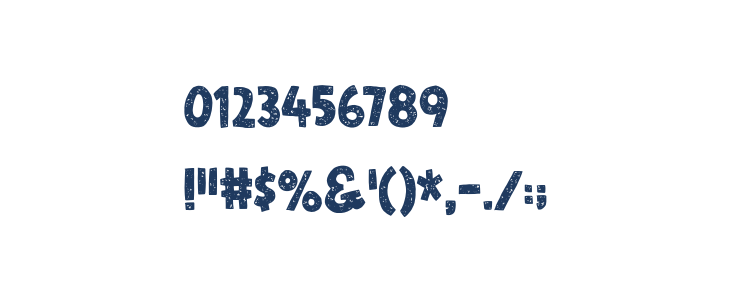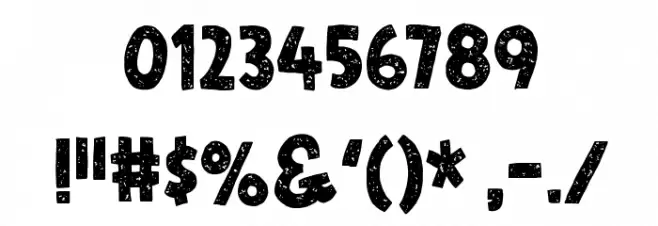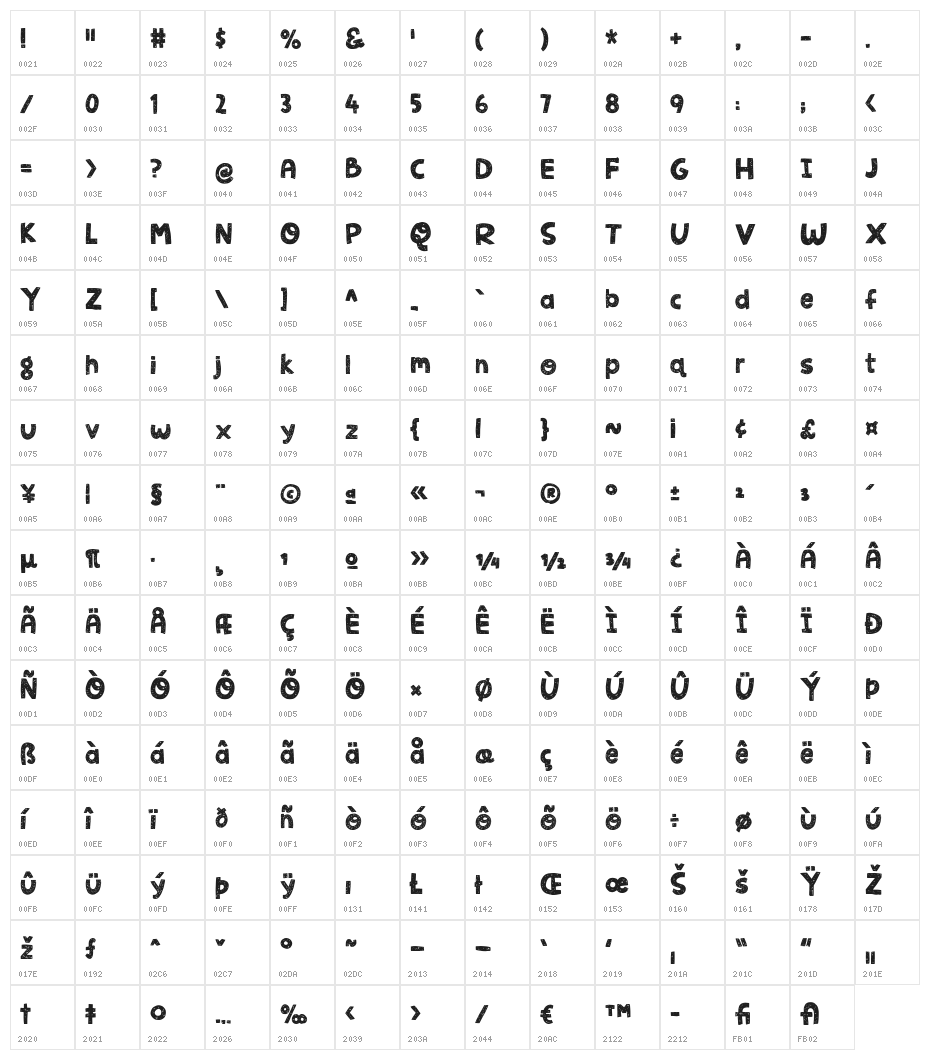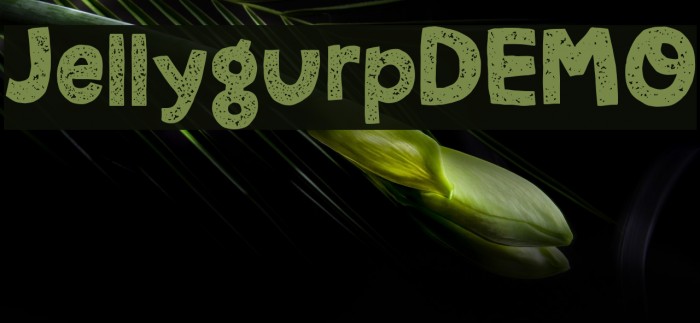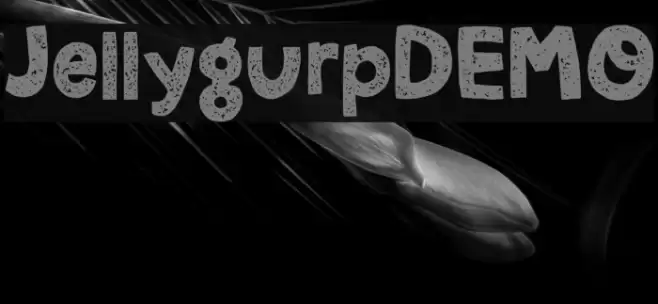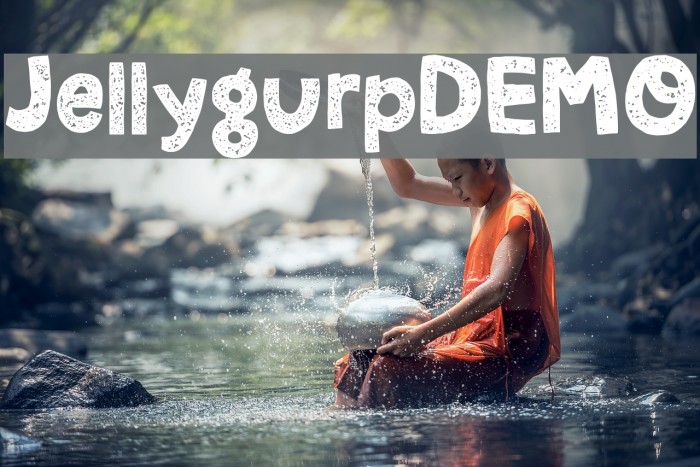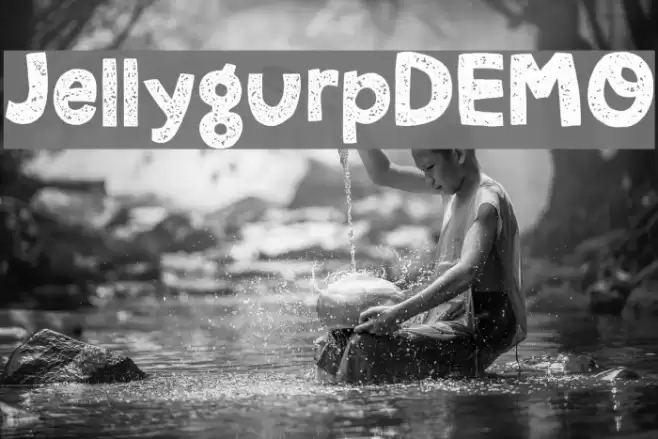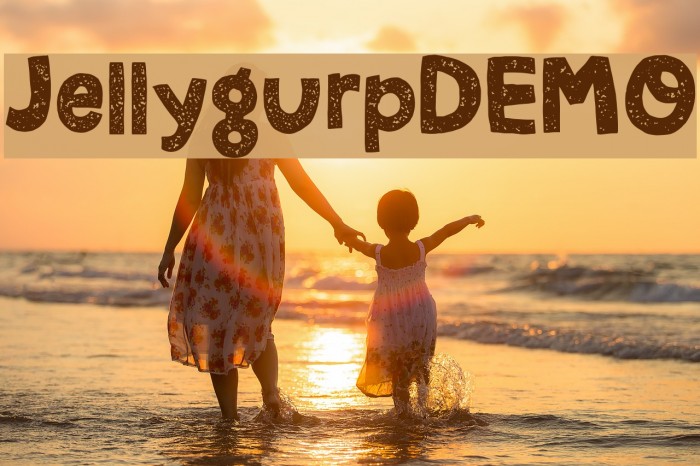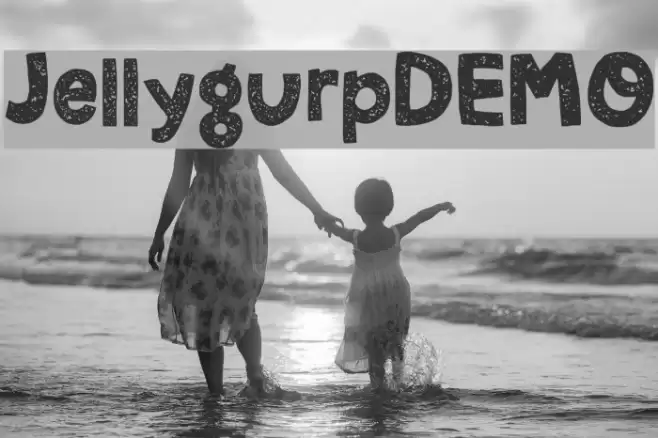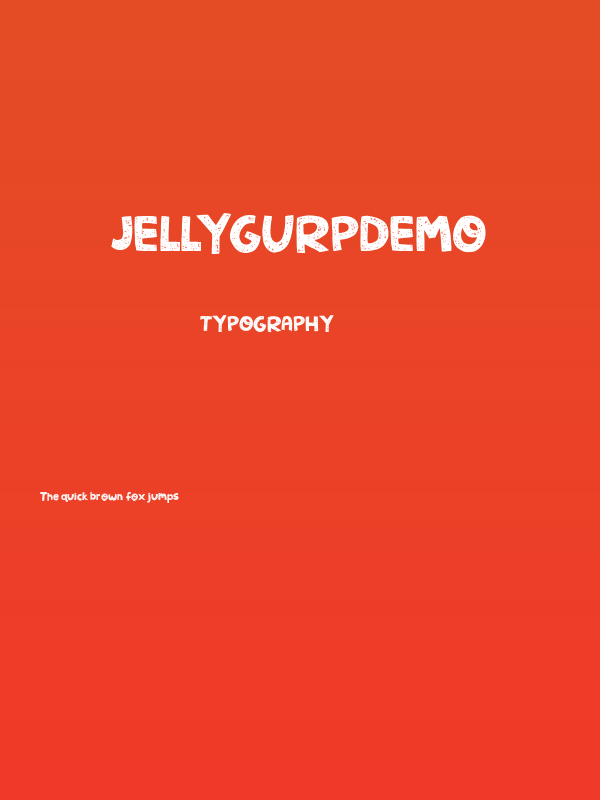
JellygurpDEMO Font
JellygurpDEMO Description
This playful and decorative font features bold, rounded characters with a speckled texture that adds a unique, whimsical touch. The letters are evenly spaced, maintaining a consistent width throughout. The uppercase and lowercase letters are distinct yet harmonious, with a slightly cartoonish style that makes them stand out. The numbers and special characters follow the same design, ensuring a cohesive look across all text elements. This font is ideal for projects that require a fun and engaging aesthetic.